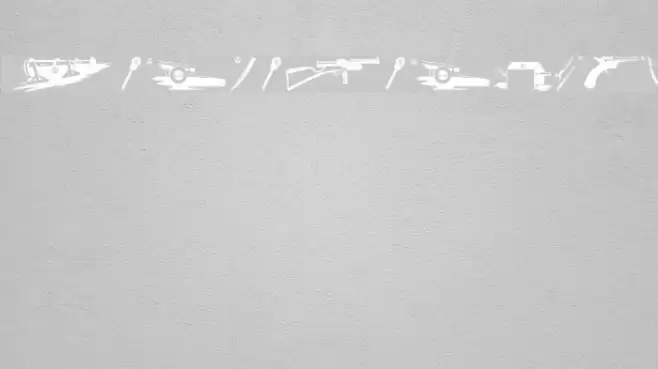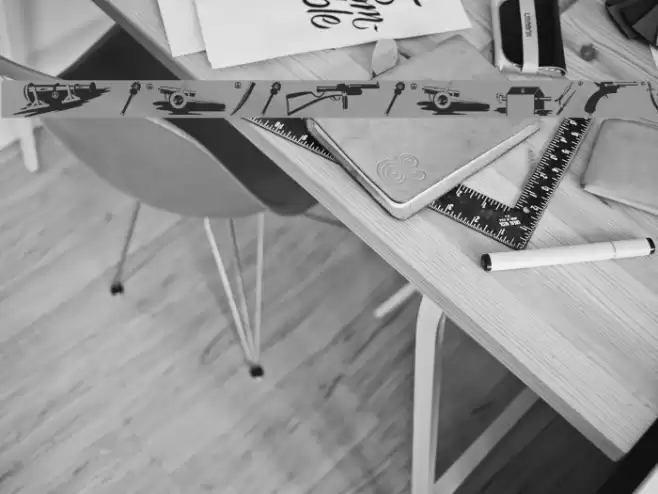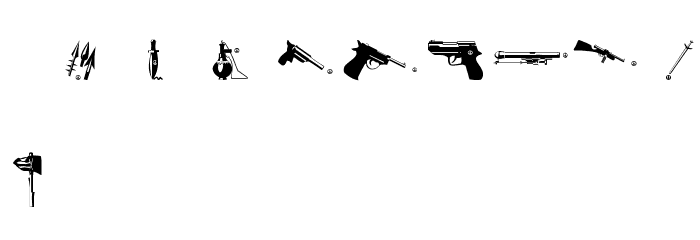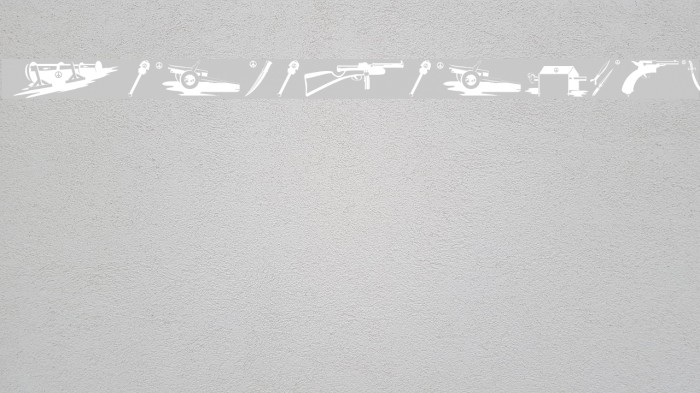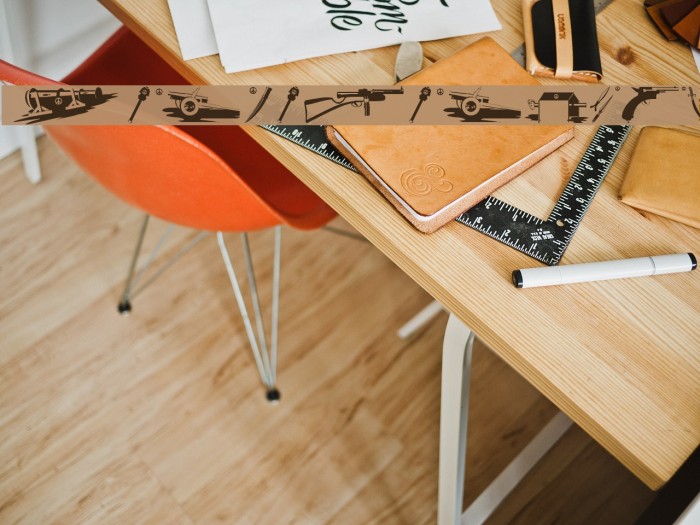
PeaceWeapons Font
PeaceWeapons Description
A highly decorative and conceptual typeface where each character is illustrated as a weapon or military object, blending elements of peace and conflict. The glyphs are pictorial, with strong black silhouettes and minimal detail, making each letter unique and visually striking.
A display font with each character depicted as a weapon or military-themed illustration from Uncategorized fonts.
- Proposed Projects: Editorial illustrations, anti-war posters, protest graphics, conceptual art, themed event branding.
- Overall Style: Decorative, Conceptual, Modern
- Use Case: Headlines, Posters, Artistic projects, Thematic logos